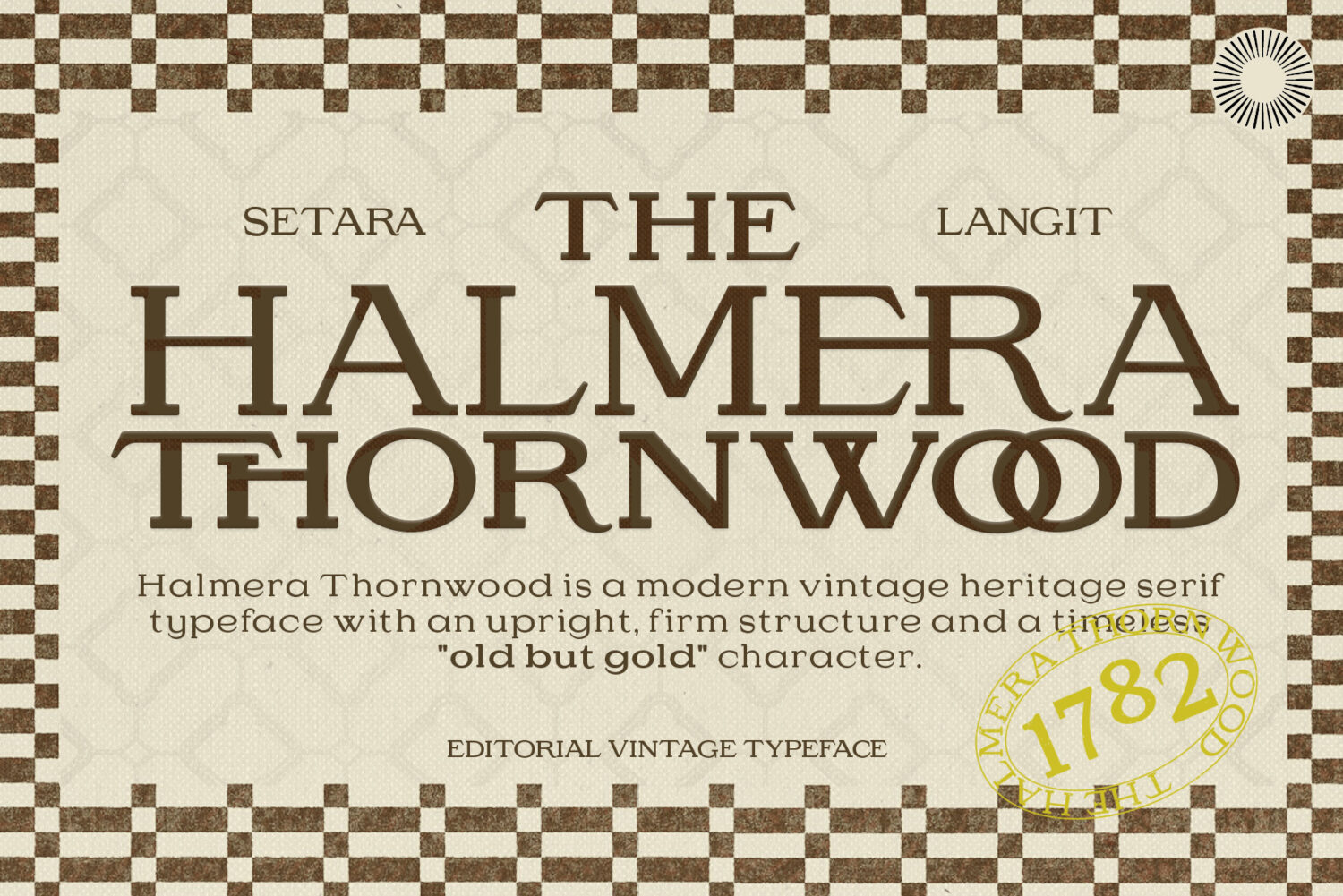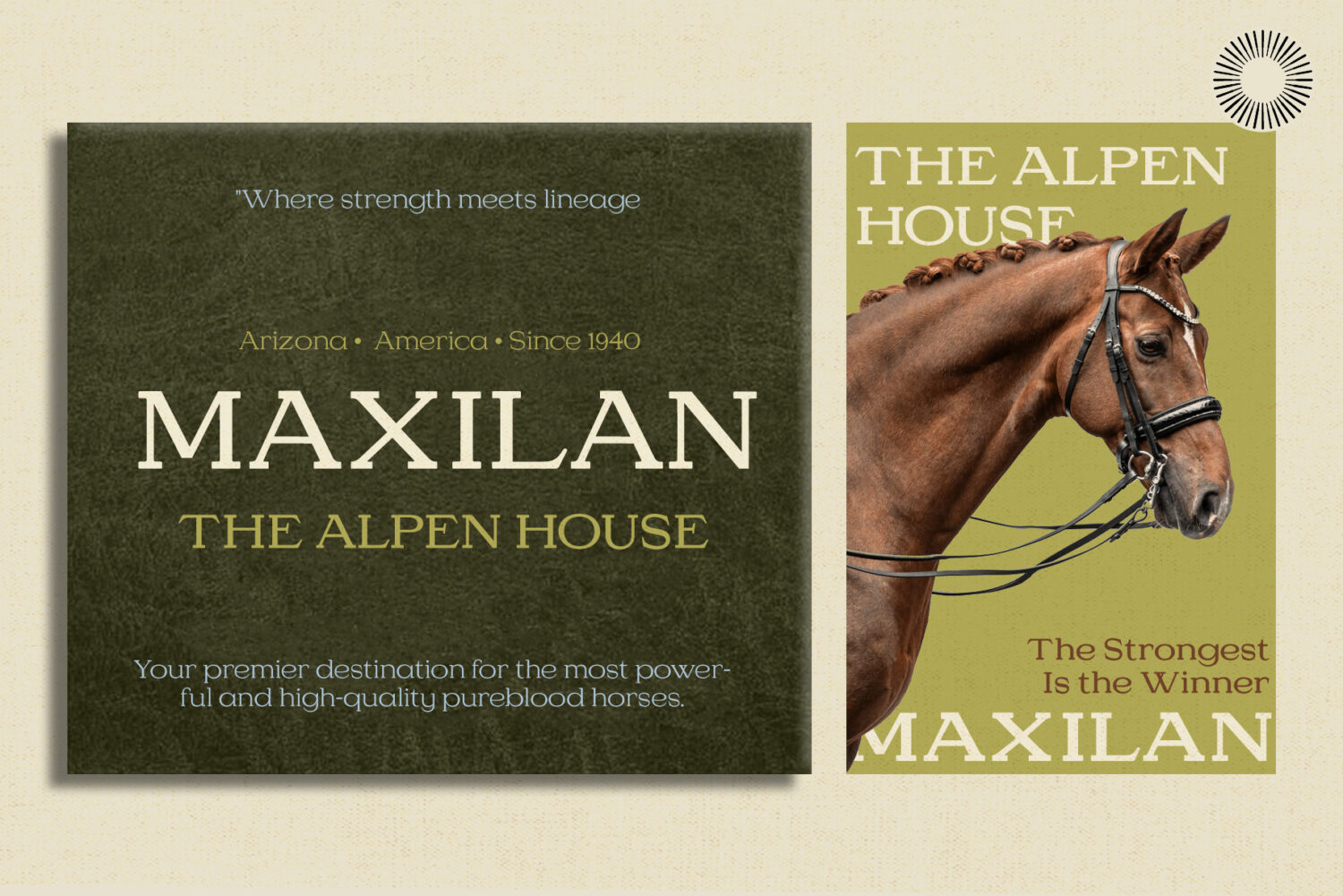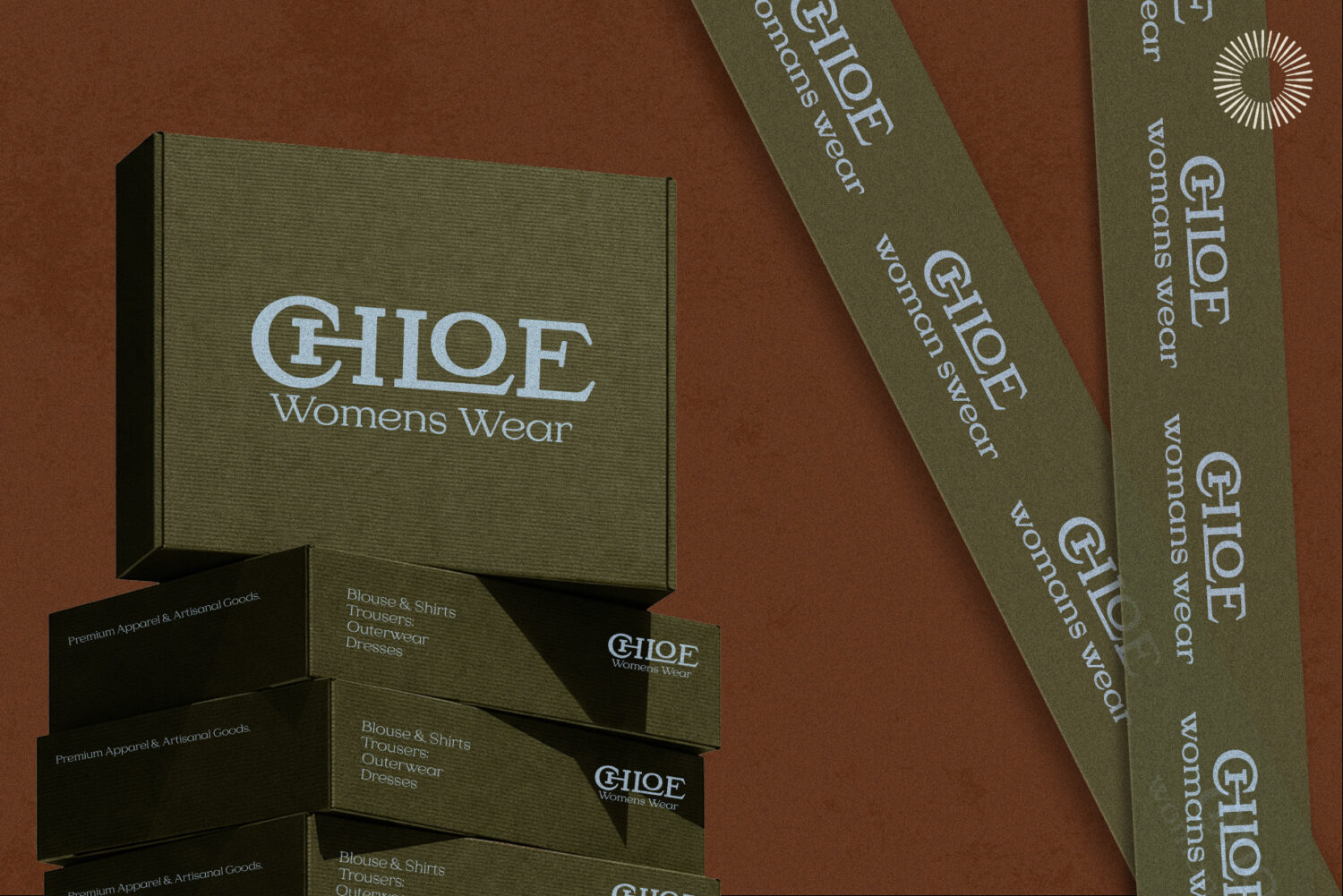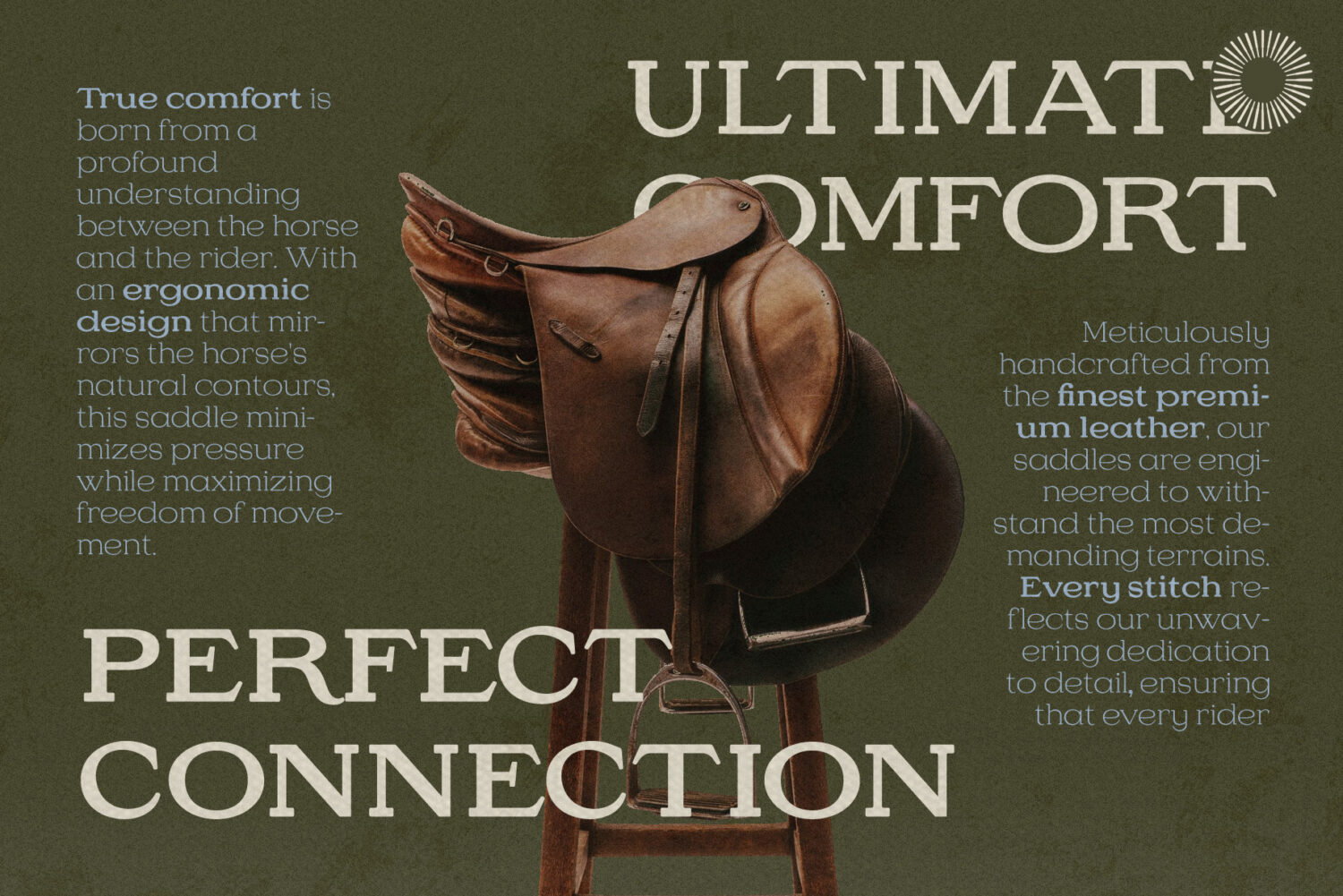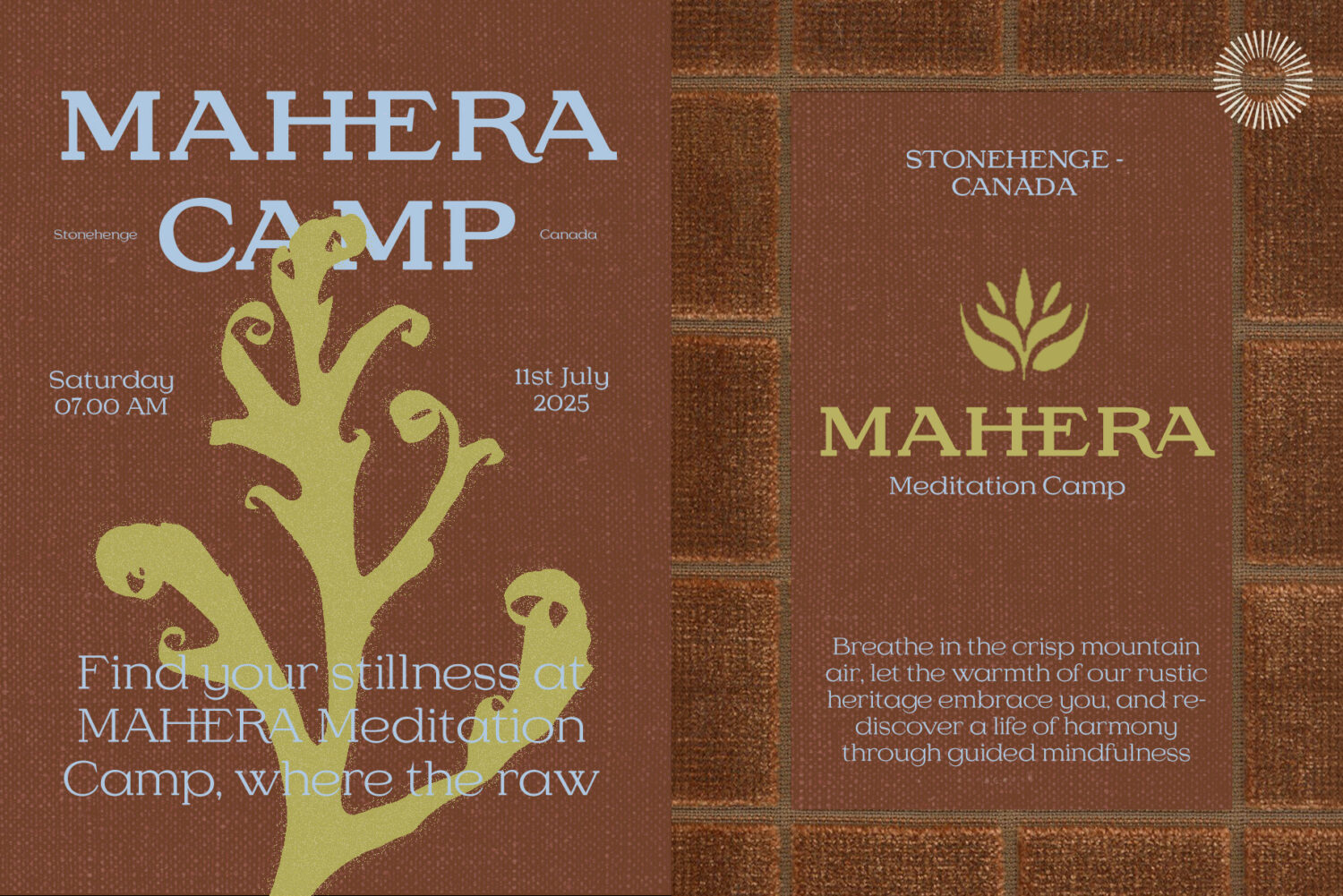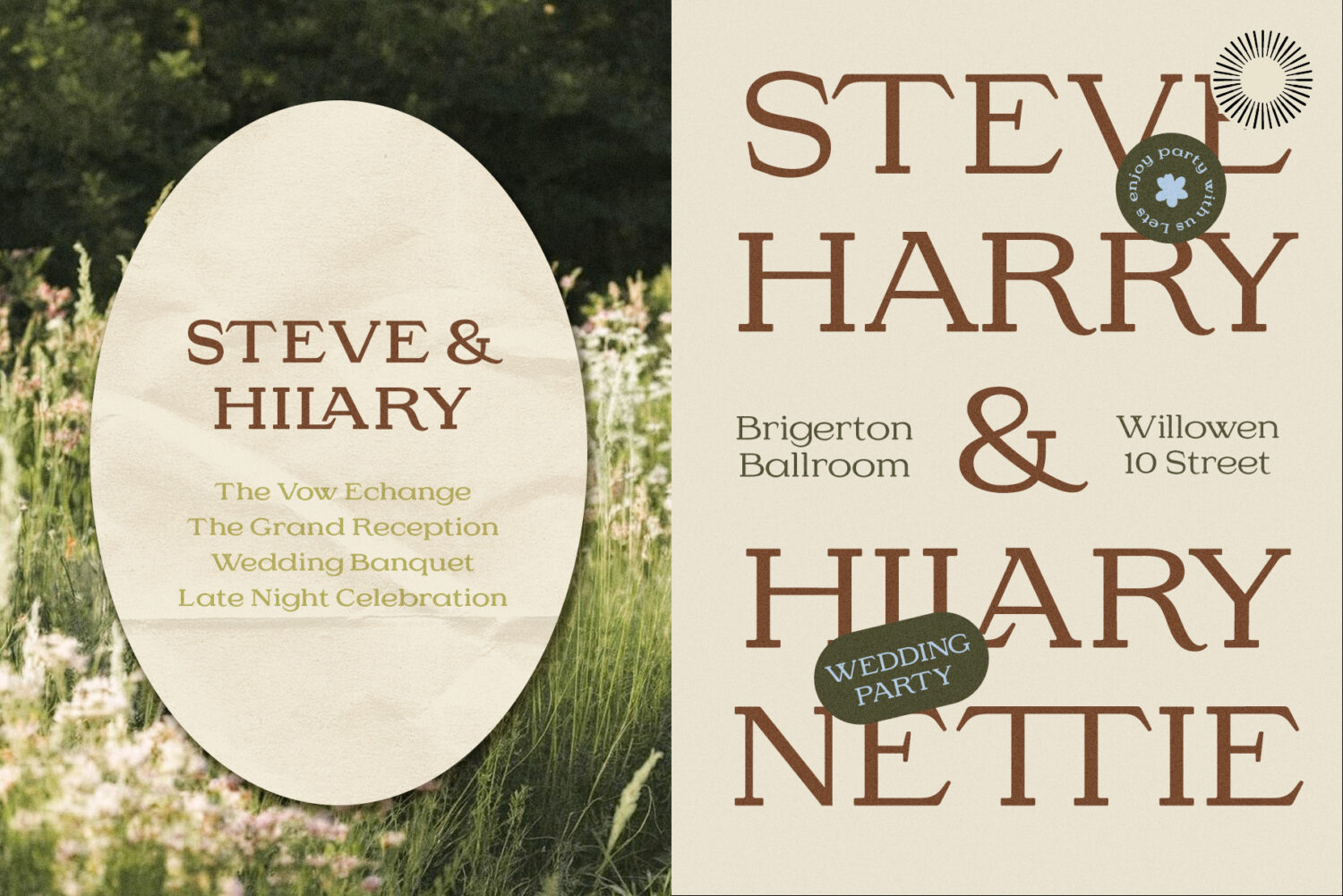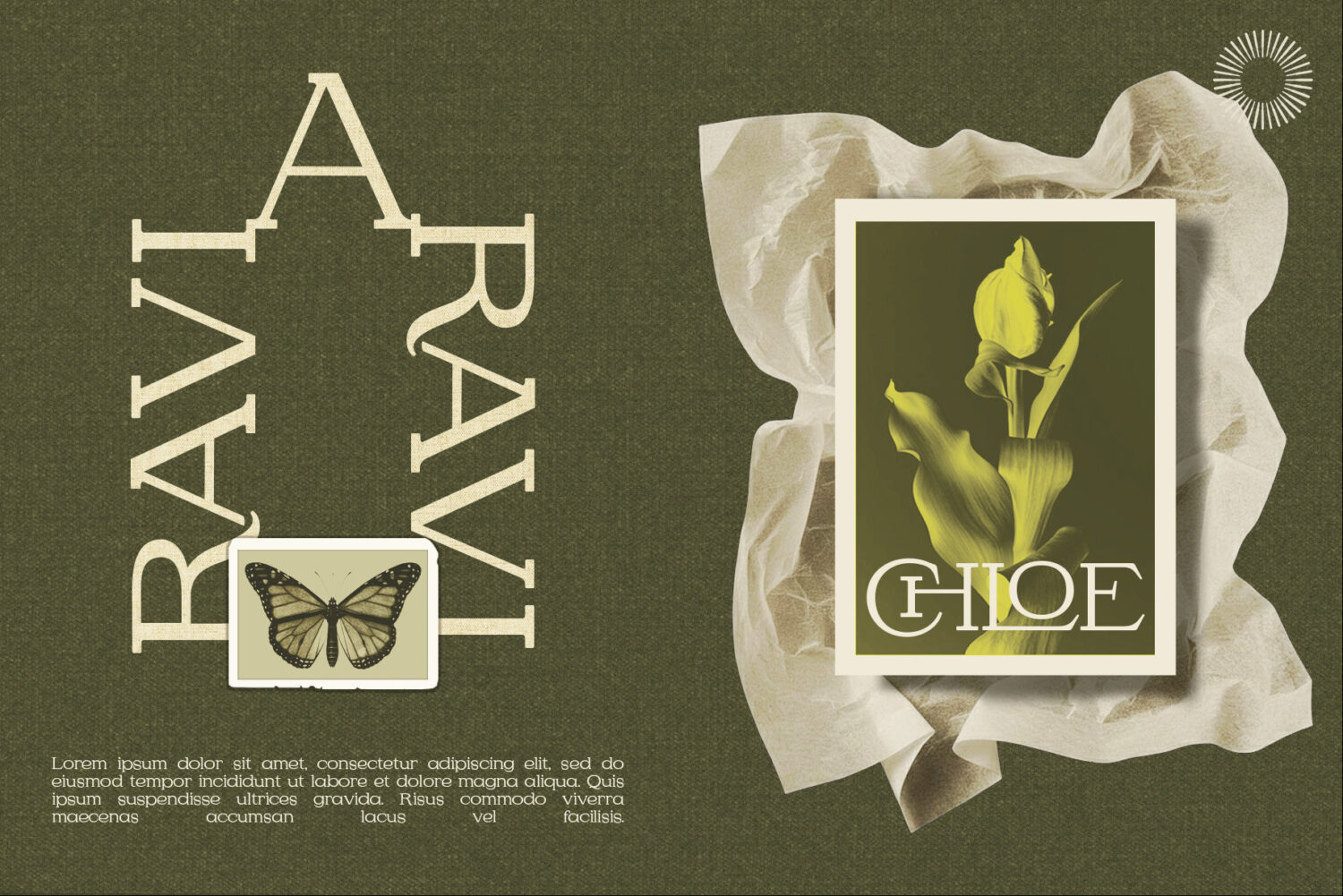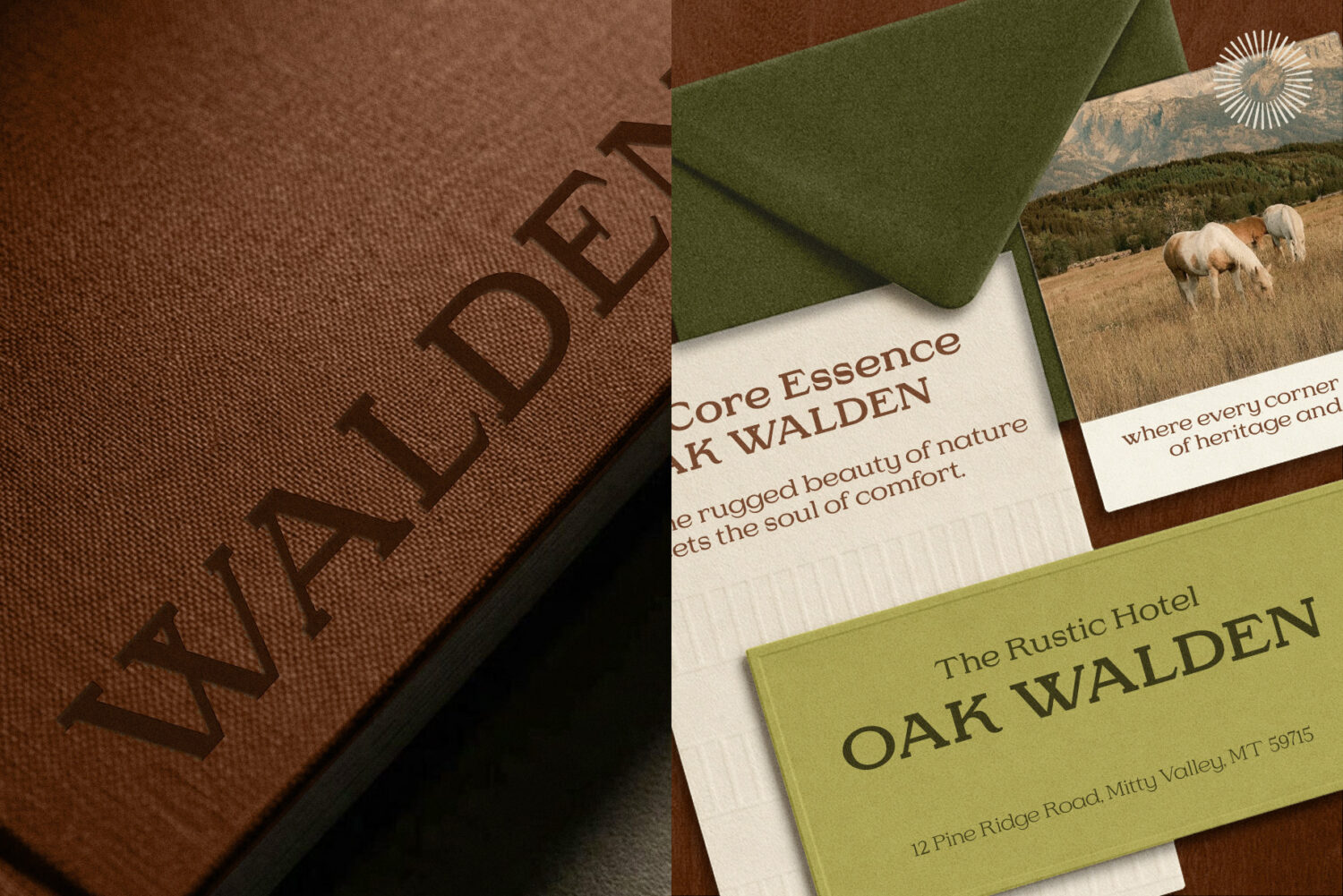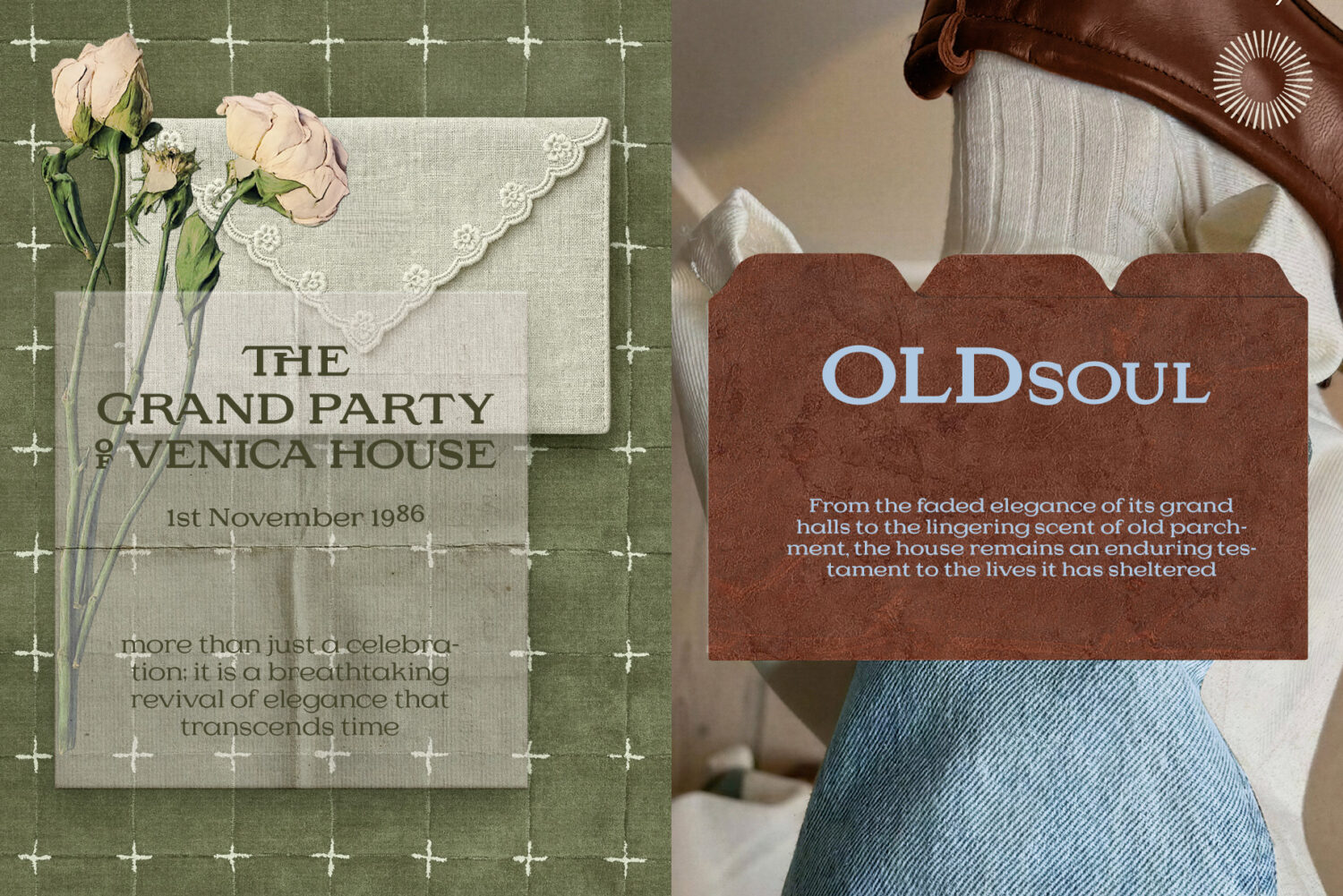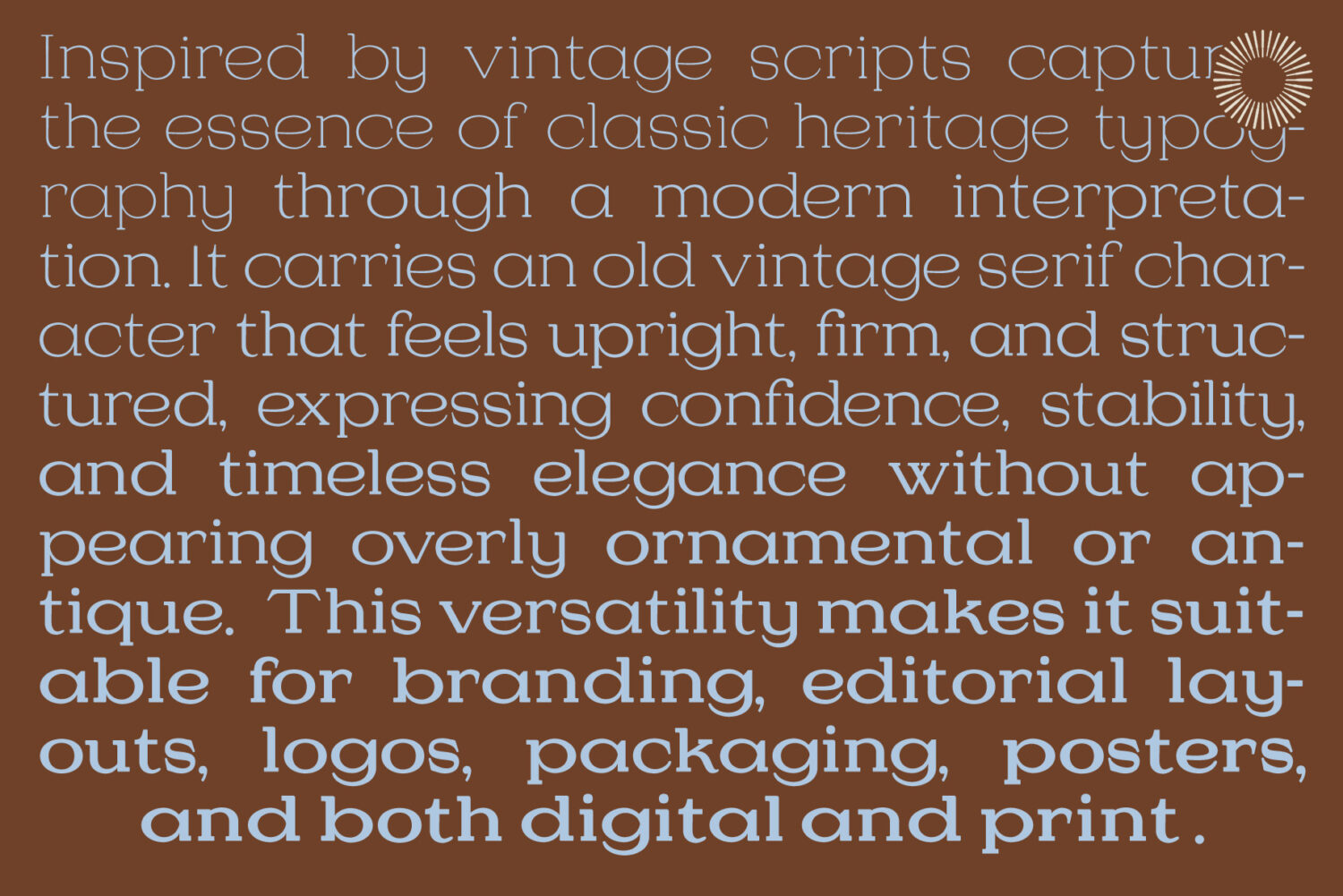
Halmera Thornwood – Serif Font Family
Halmera Thornwood is a modern vintage heritage serif typeface with a strong, upright structure and timeless editorial character. Inspired by classic print typography and old-world signage, it carries an “old but gold” presence refined, firm, and quietly powerful. The letterforms are tall, balanced, and confident, with solid serifs and clean proportions that make it highly readable while still feeling distinctive. Halmera Thornwood blends tradition and modern clarity, making it versatile for both branding and editorial use.